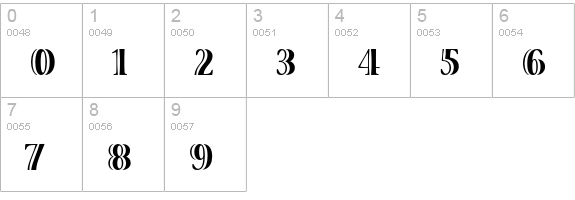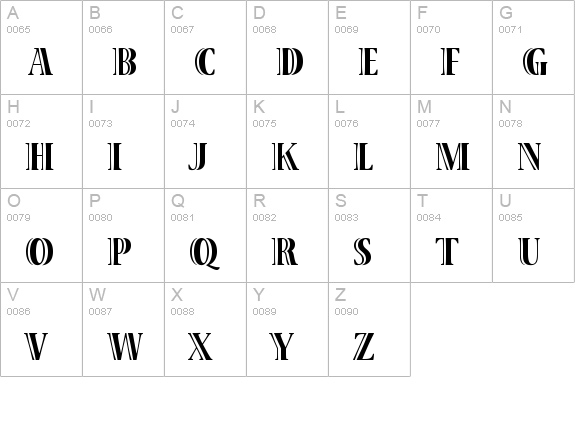
Viva Std Bold Condensed Font Details
Viva Std Bold Condensed is a strong, high-contrast, condensed-width variant in the Viva typeface family \xE2\x80\x94 well suited to headlines, attention-grabbing titles, and strong calls-to-action.
Viva Std Bold Condensed font is a stunning display typeface that exudes elegance and sophistication. Its bold and condensed design makes it perfect for headlines, titles, and attention-grabbing designs. This font is meticulously crafted with precision, ensuring every curve and line is perfectly balanced to create a harmonious visual experience. With its bold weight, Viva Std Bold Condensed commands attention and demands to be noticed. It adds a touch of modernity and professionalism to any design project, making it suitable for a wide range of applications, including branding, advertising, packaging, and editorial design. One of the best features of Viva Std Bold Condensed font is that it is available for free download at FontsMarket.com. This means that you can easily access and utilize this exceptional font without spending a dime. Whether you are a professional designer or a hobbyist, this free font offers you the opportunity to enhance your designs with its unique style and versatility. The legibility of Viva Std Bold Condensed font is outstanding, even at smaller sizes. Each character is carefully designed to ensure clear and easy reading, making it ideal for both print and digital projects. Additionally, the condensed nature of this font allows for more content to be displayed within a limited space, making it efficient for conveying information concisely. Viva Std Bold Condensed font is a true gem in the world of typography. Its boldness, elegance, and versatility make it a must-have for designers seeking to create impactful and visually stunning designs. And the fact that it is freely available to download at FontsMarket.com only adds to its appeal. So why wait? Download Viva Std Bold Condensed font today and elevate your design projects to new heights of excellence.